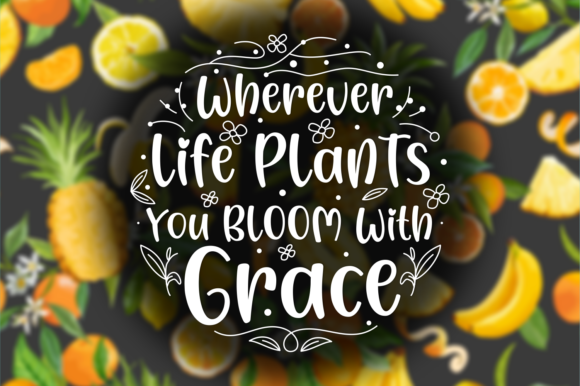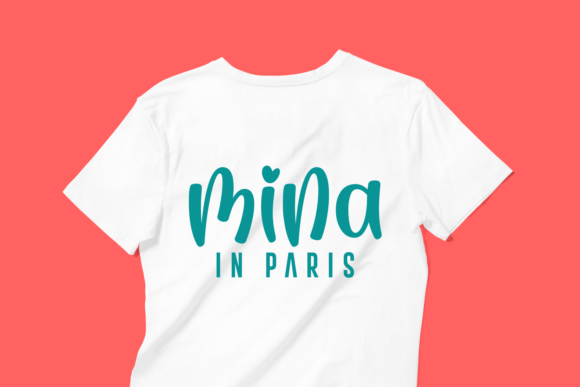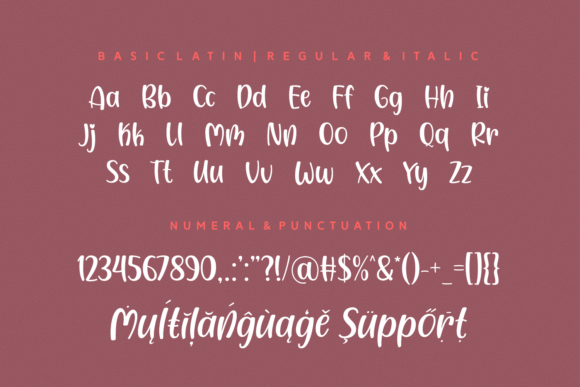
Carmila Font: Elevate Your Design with Luxury and Elegance
In the world of typography, fonts play a crucial role in conveying the tone and personality of a design project. For designers and crafters looking to add a touch of luxury and sophistication to their work, the Carmila font is an excellent choice. This beautiful, round-lettered handwritten font boasts a unique feel and stunning impact, making it perfect for a wide range of design applications.
The Unique Charm of Carmila Font
Carmila is a carefully crafted font that exudes elegance and refinement. Its rounded letters and fluid strokes create a sense of warmth and approachability, while its unique feel sets it apart from more traditional fonts. Whether you’re working on a branding project, a wedding invitation, or a packaging design, Carmila font is sure to make a lasting impression.
Key Features of Carmila Font
- Handwritten style: Carmila font features a beautiful, handwritten style that adds a personal touch to any design project.
- Round letters: The font’s rounded letters create a sense of softness and approachability, making it perfect for designs that require a touch of warmth.
- Unique feel: Carmila font has a distinctive feel that sets it apart from other fonts, making it ideal for designers looking to create something truly unique.
- Luxury appeal: The font’s elegant and refined appearance makes it perfect for high-end designs that require a touch of luxury and sophistication.
Uses of Carmila Font
Carmila font is versatile and can be used in a wide range of design applications, including:
- Branding and logos: The font’s unique feel and luxury appeal make it perfect for branding projects that require a touch of elegance and sophistication.
- Wedding invitations and stationery: Carmila font is ideal for wedding invitations, stationery, and other paper designs that require a touch of romance and luxury.
- Packaging design: The font’s elegant appearance makes it perfect for packaging designs that require a touch of sophistication and refinement.
- Digital designs: Carmila font can also be used in digital designs, such as website headers, social media graphics, and email templates.
Tips for Using Carmila Font
To get the most out of Carmila font, here are a few tips to keep in mind:
- Use it sparingly: While Carmila font is beautiful, it’s best to use it sparingly to avoid overwhelming the design.
- Pair it with complementary fonts: Pairing Carmila font with complementary fonts can create a stunning contrast and add visual interest to the design.
- Experiment with colors and textures: Carmila font looks great in a variety of colors and textures, so don’t be afraid to experiment and find the perfect combination for your design.
In conclusion, Carmila font is a beautiful and elegant font that can add a touch of luxury and sophistication to any design project. Its unique feel, rounded letters, and stunning impact make it perfect for a wide range of design applications, from branding and logos to wedding invitations and packaging design. With its versatility and elegance, Carmila font is sure to become a favorite among designers and crafters.
Get Creative with Carmila Font